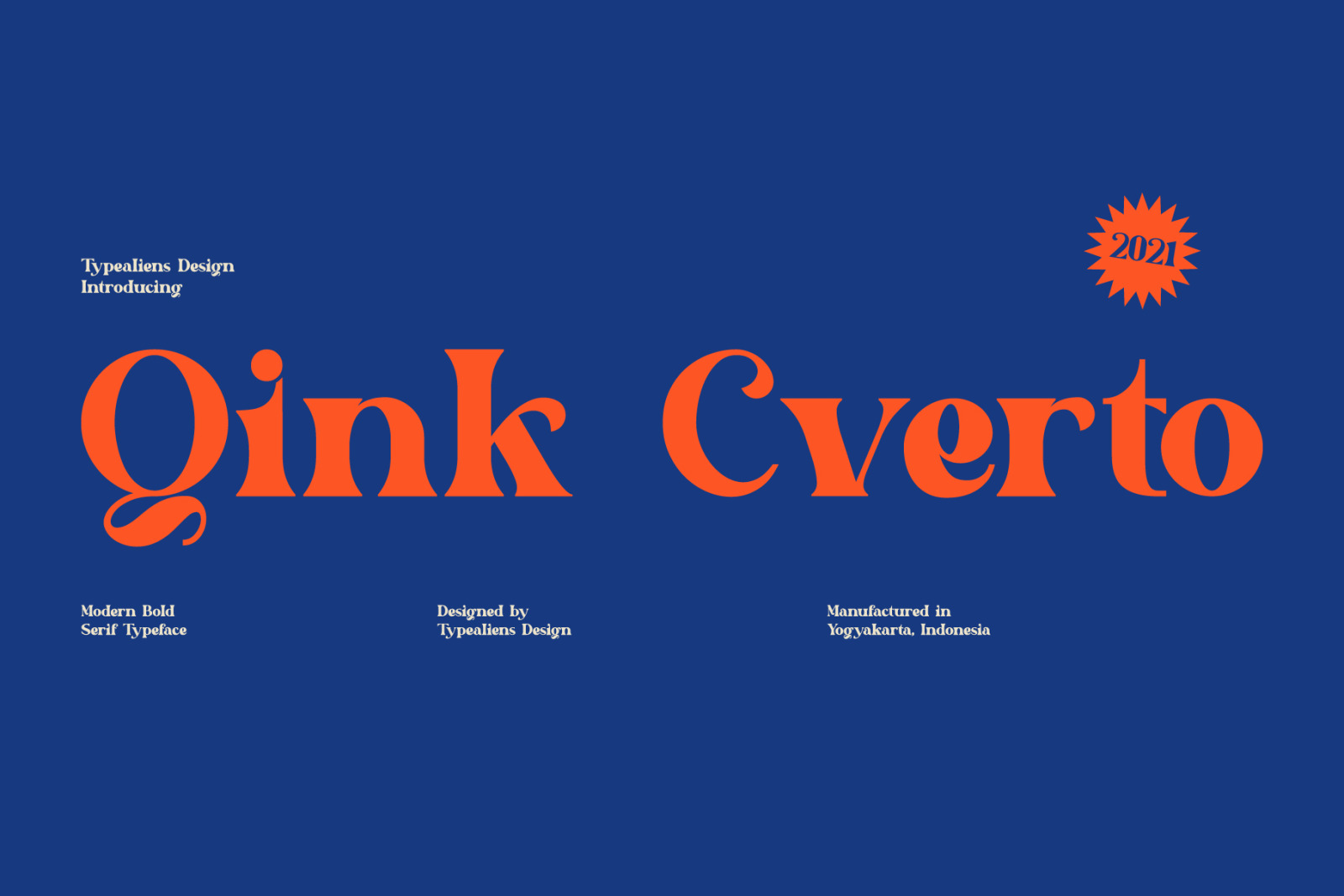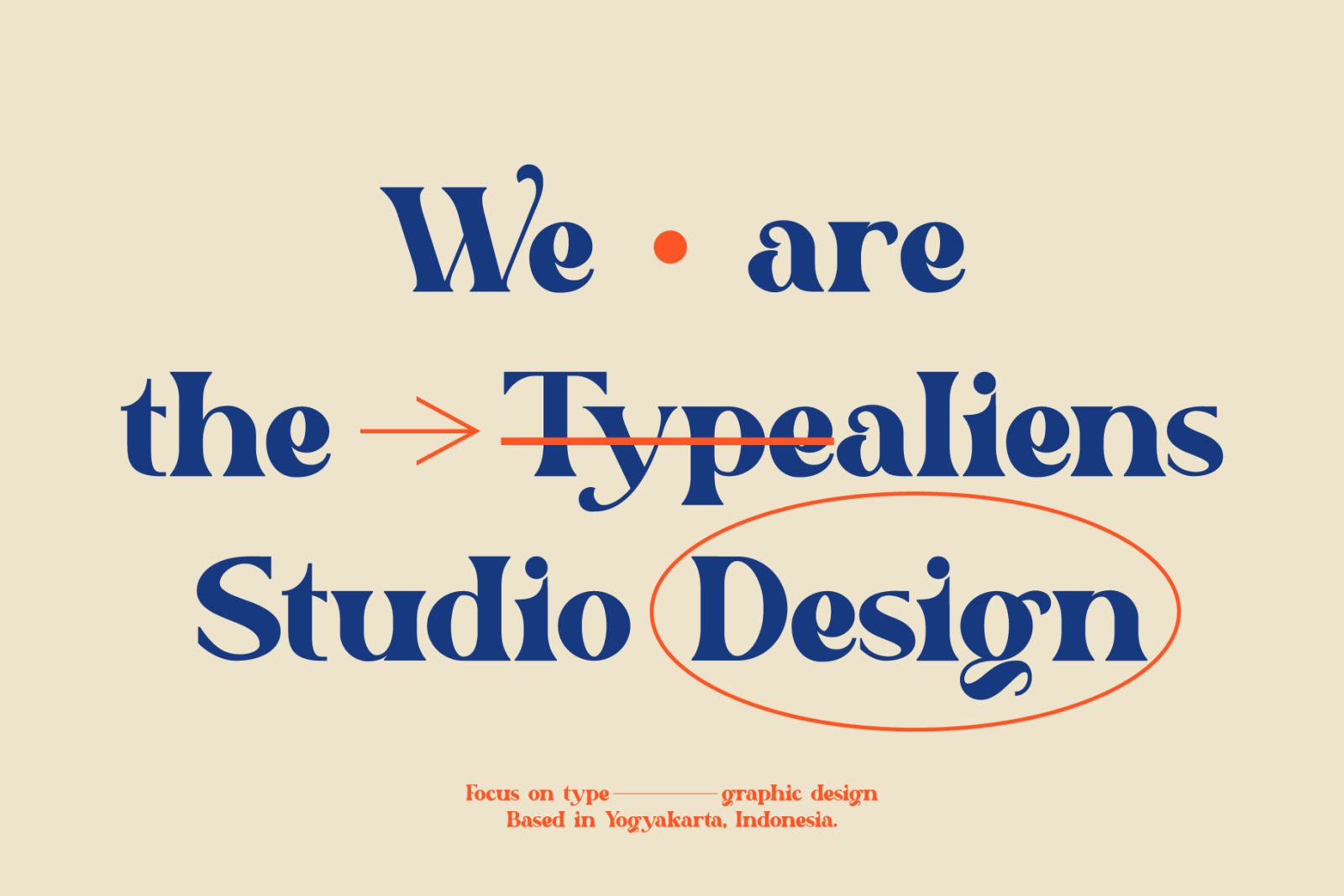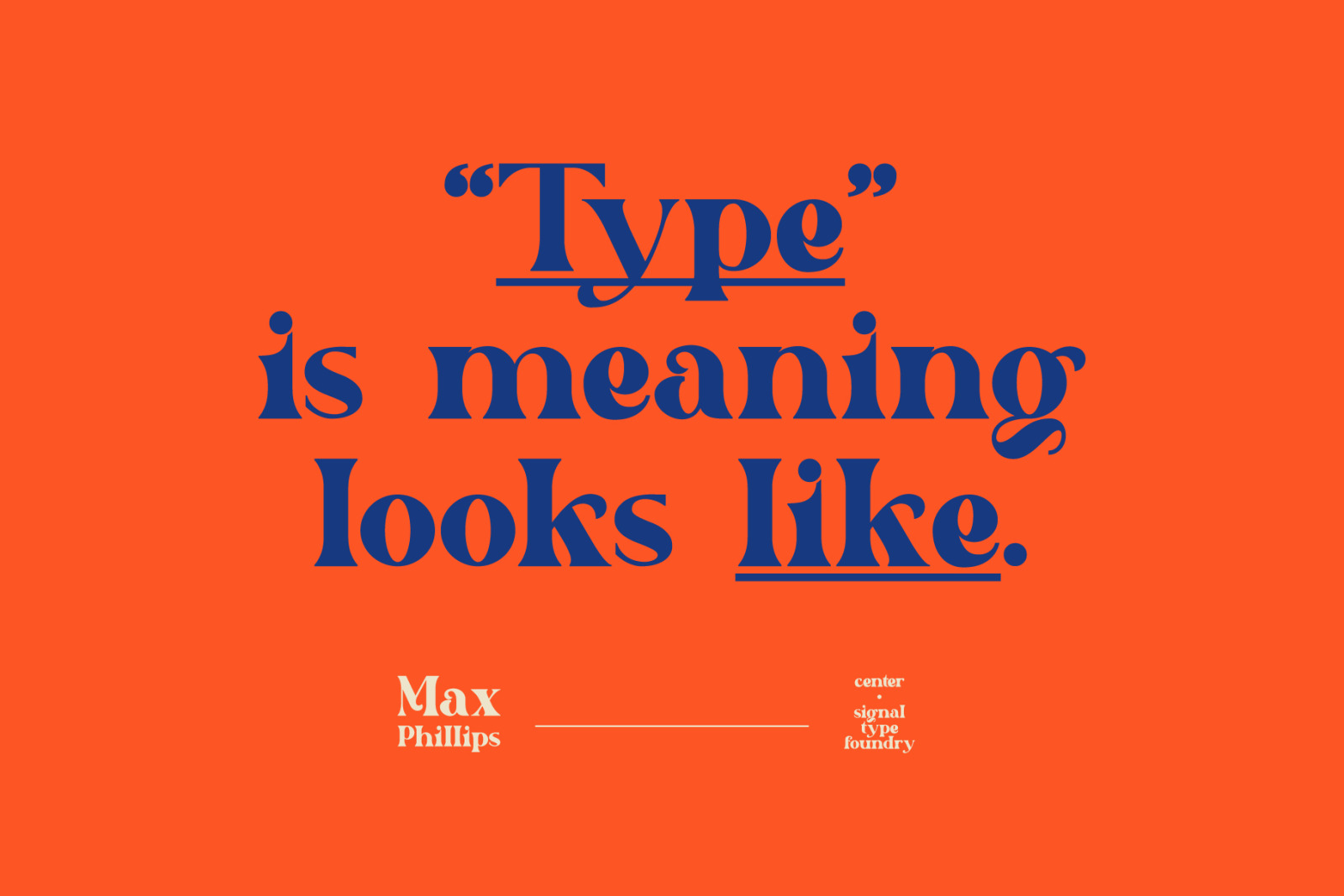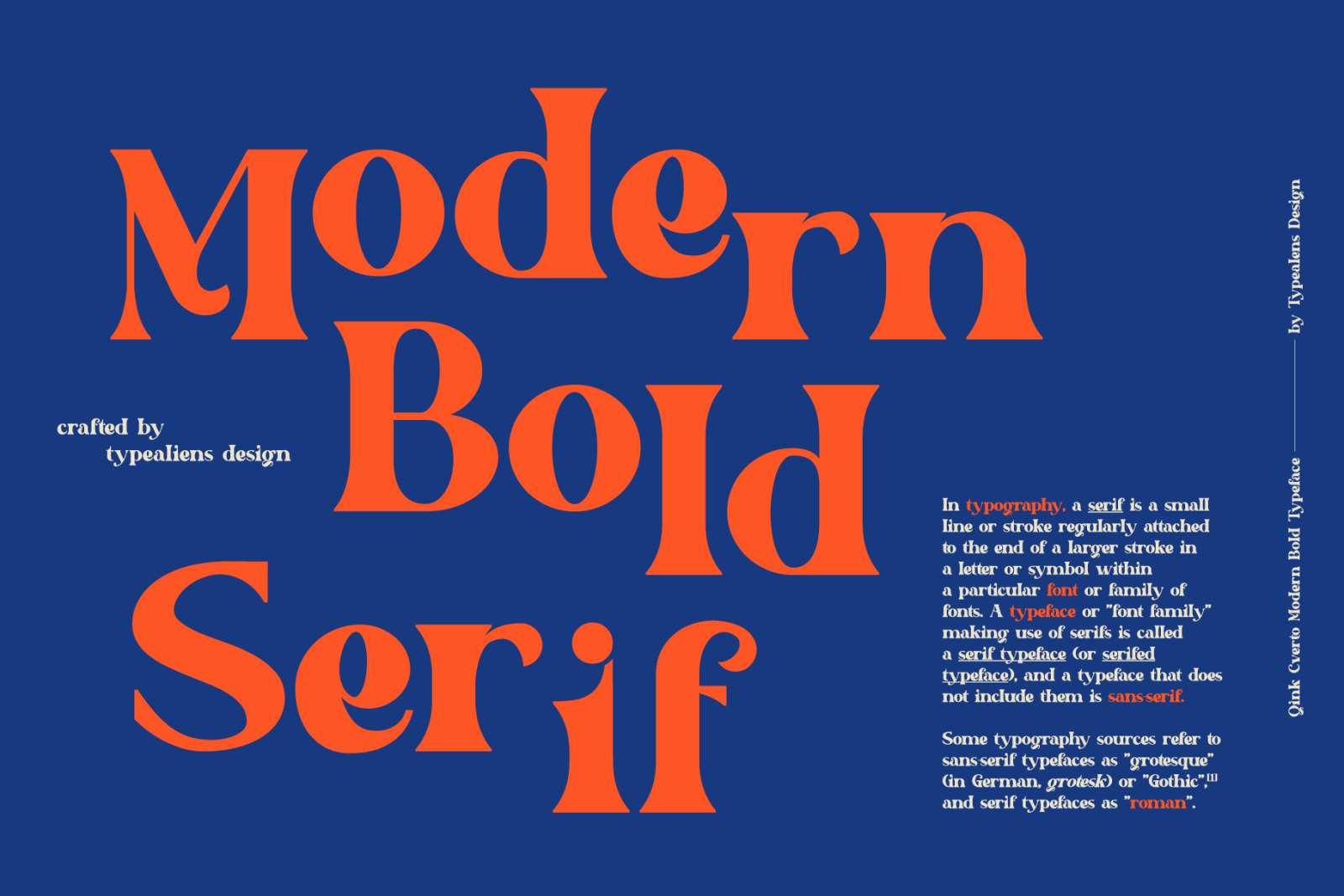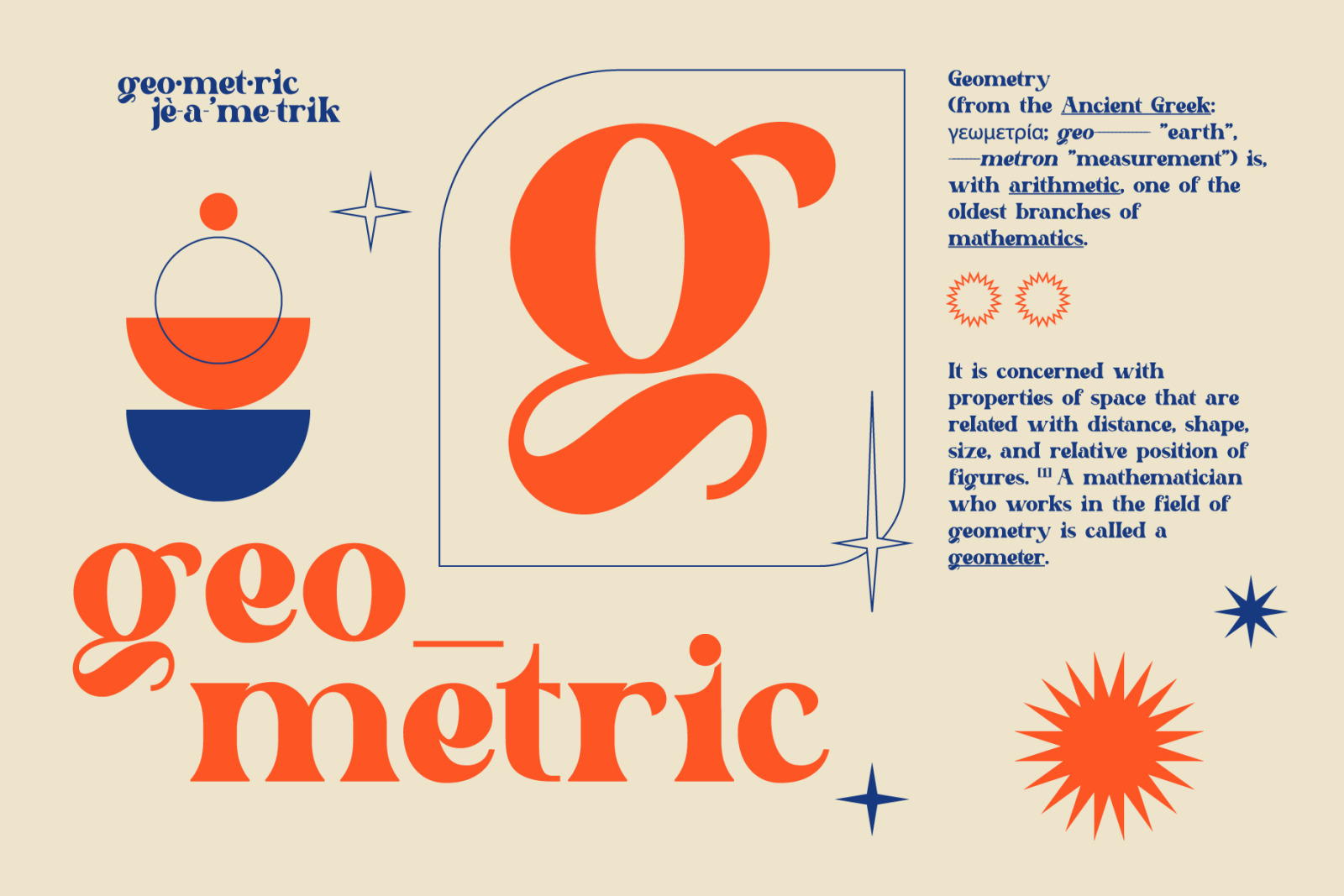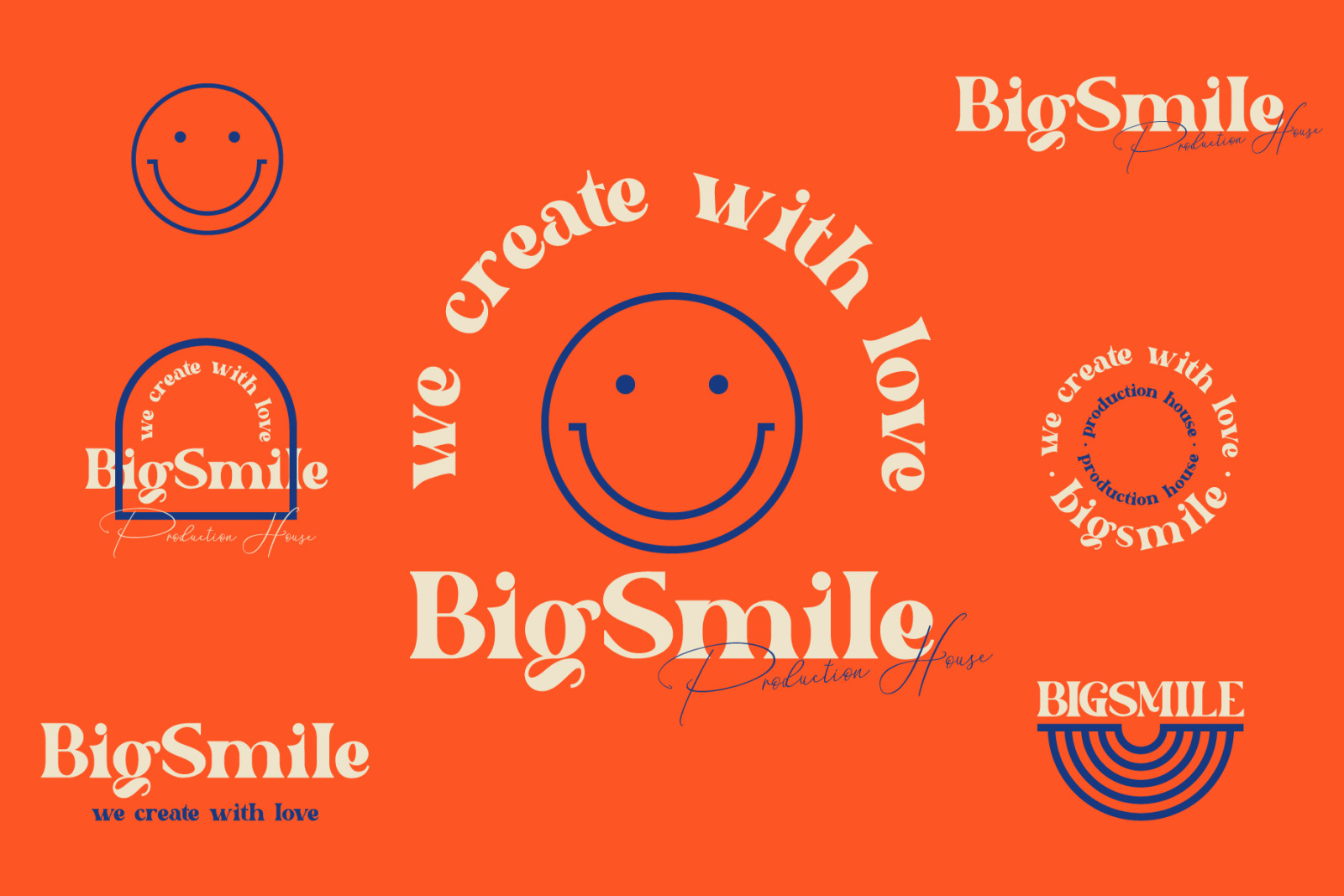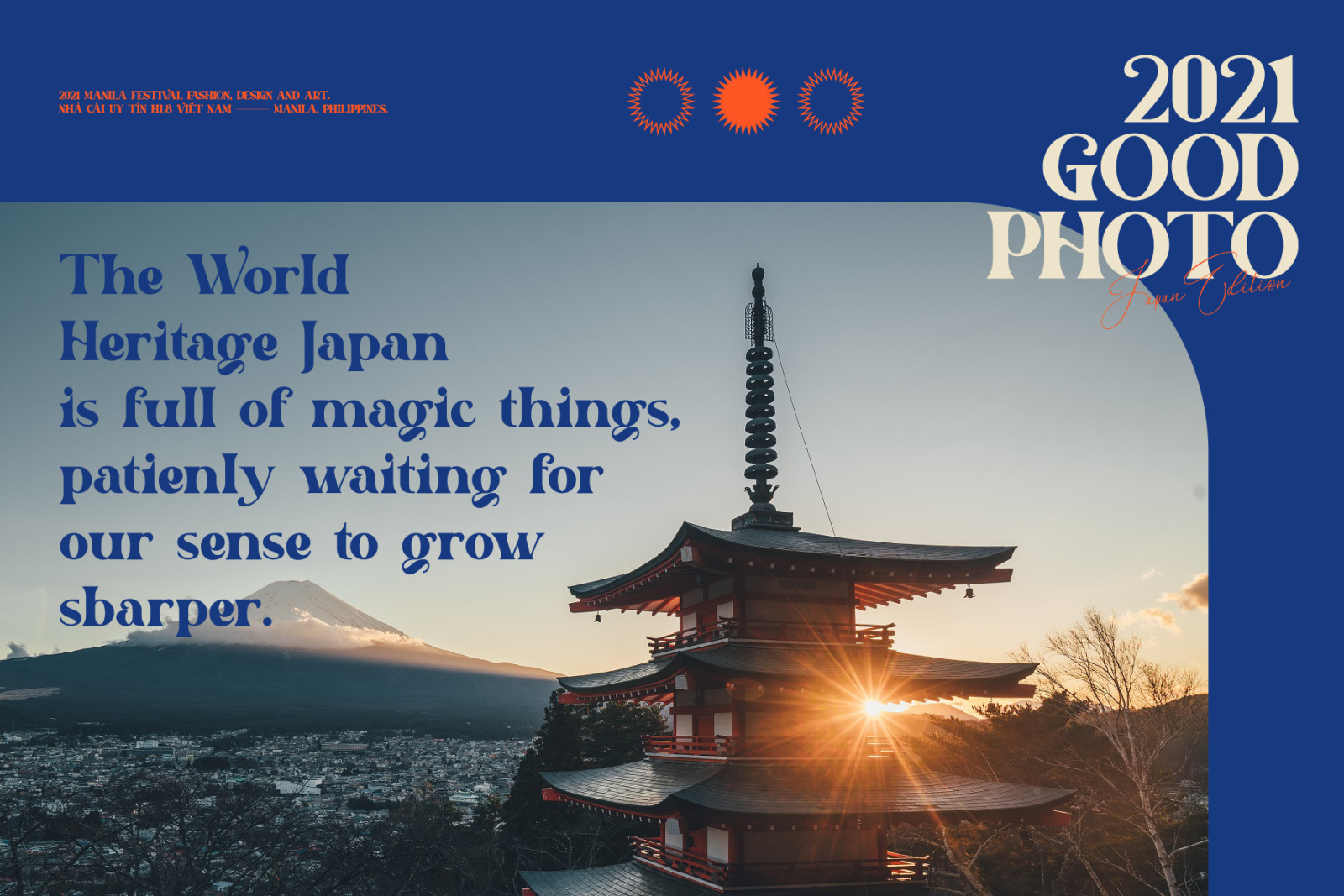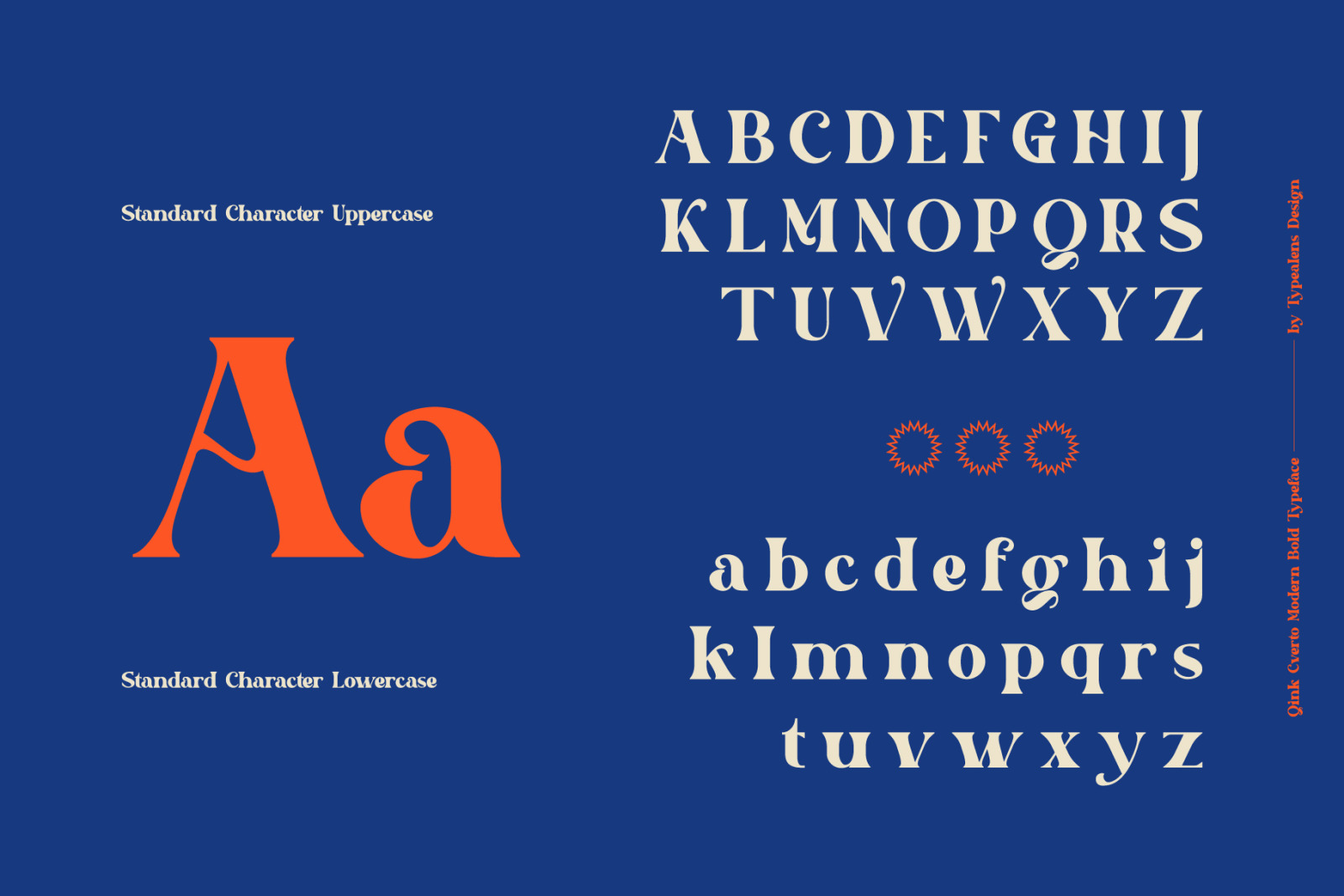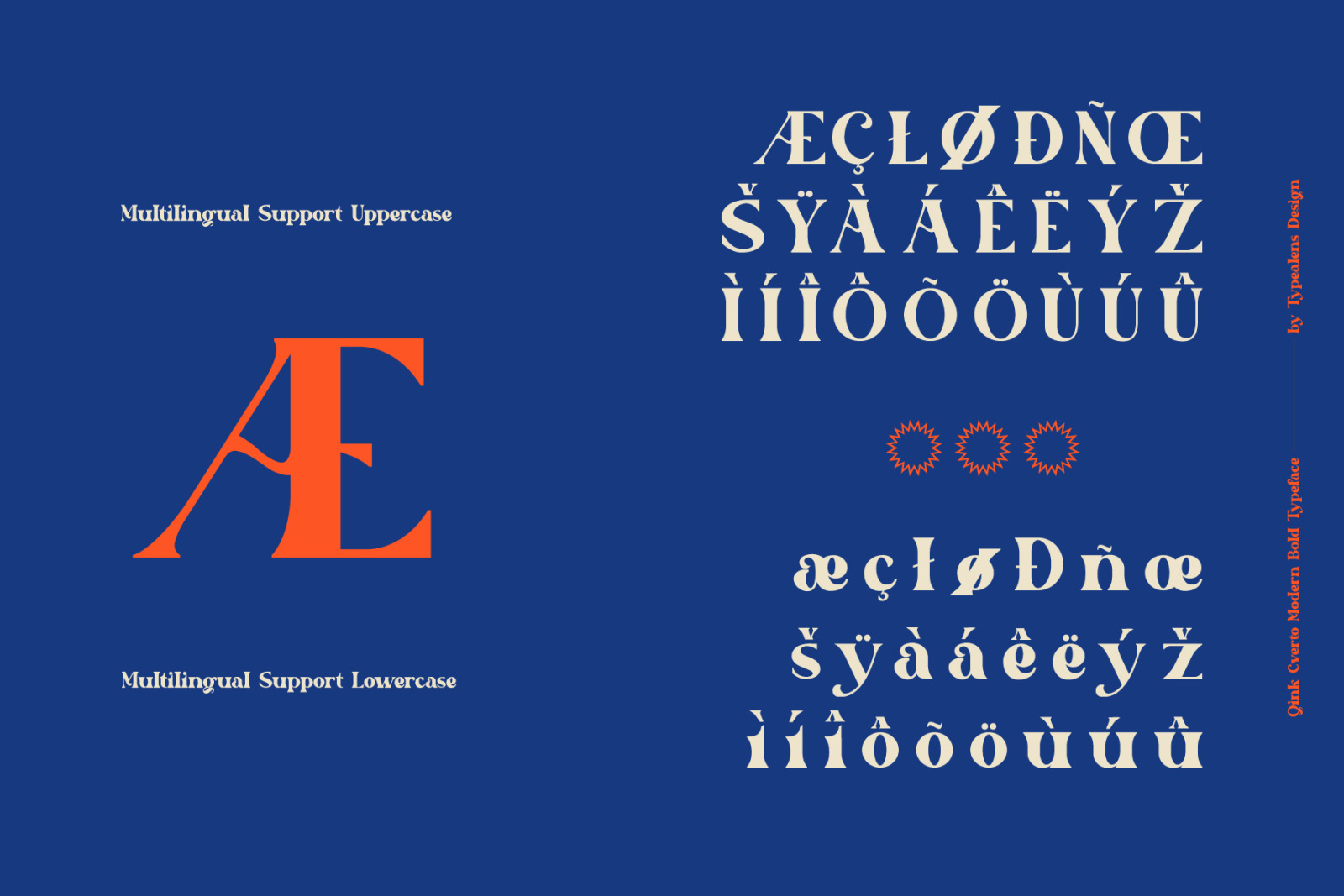
Qink Cverto Font
QINK CVERTO is a modern bold serif font. It is very suitable for making text or as the main writing, because it has quite unique characteristics, it is also interesting when to make a logo design or as a social media design layout material.